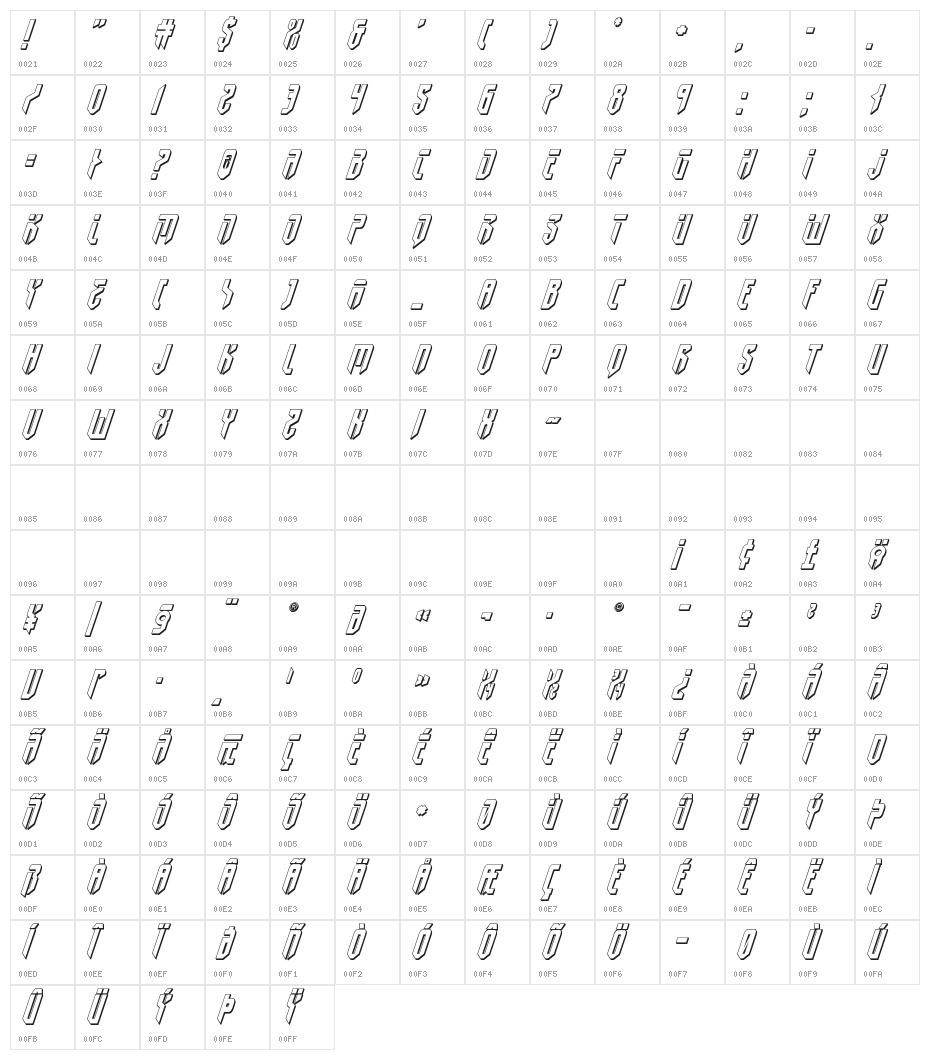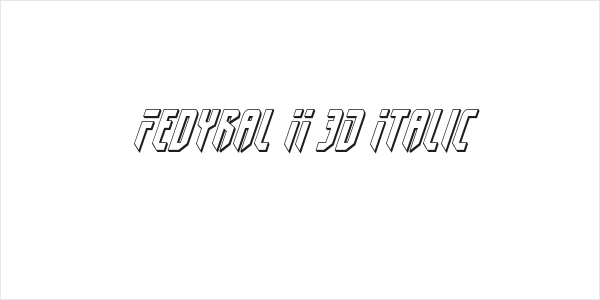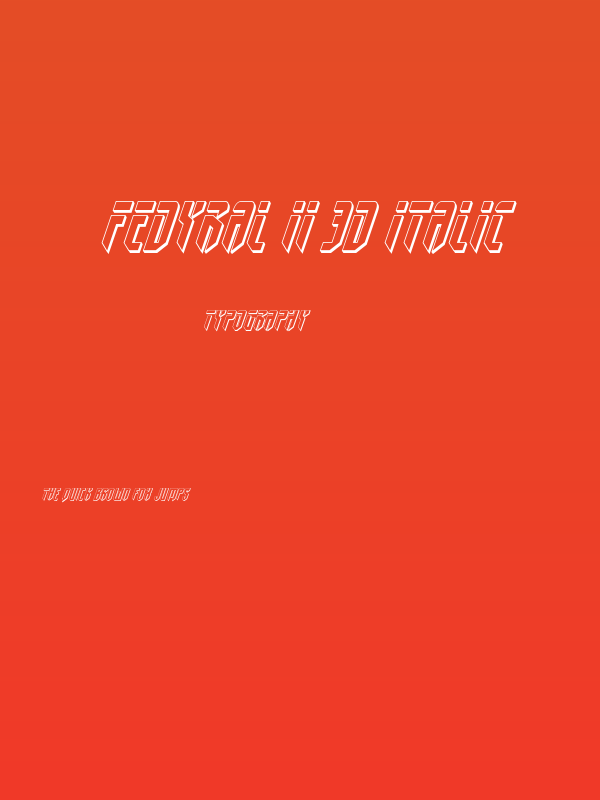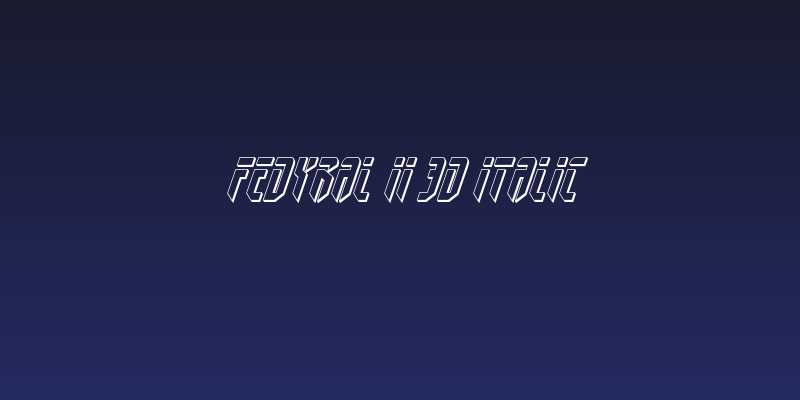
Fedyral II 3D Italic Font
Fedyral II 3D Italic Description
This font features a bold, three-dimensional design with a distinct italic slant, giving it a dynamic and futuristic appearance. The characters are outlined, creating a shadow effect that enhances the 3D illusion. Each letter is crafted with sharp angles and clean lines, contributing to a modern and edgy aesthetic. The uppercase and lowercase letters maintain a consistent style, while the numerals and special characters seamlessly integrate into the overall design. This font's unique structure makes it stand out, suitable for projects that require a strong visual impact.
| Overall Style | Futuristic, Edgy |
| Proposed Projects | Ideal for video game titles, sci-fi movie posters, tech branding, and dynamic advertising. |